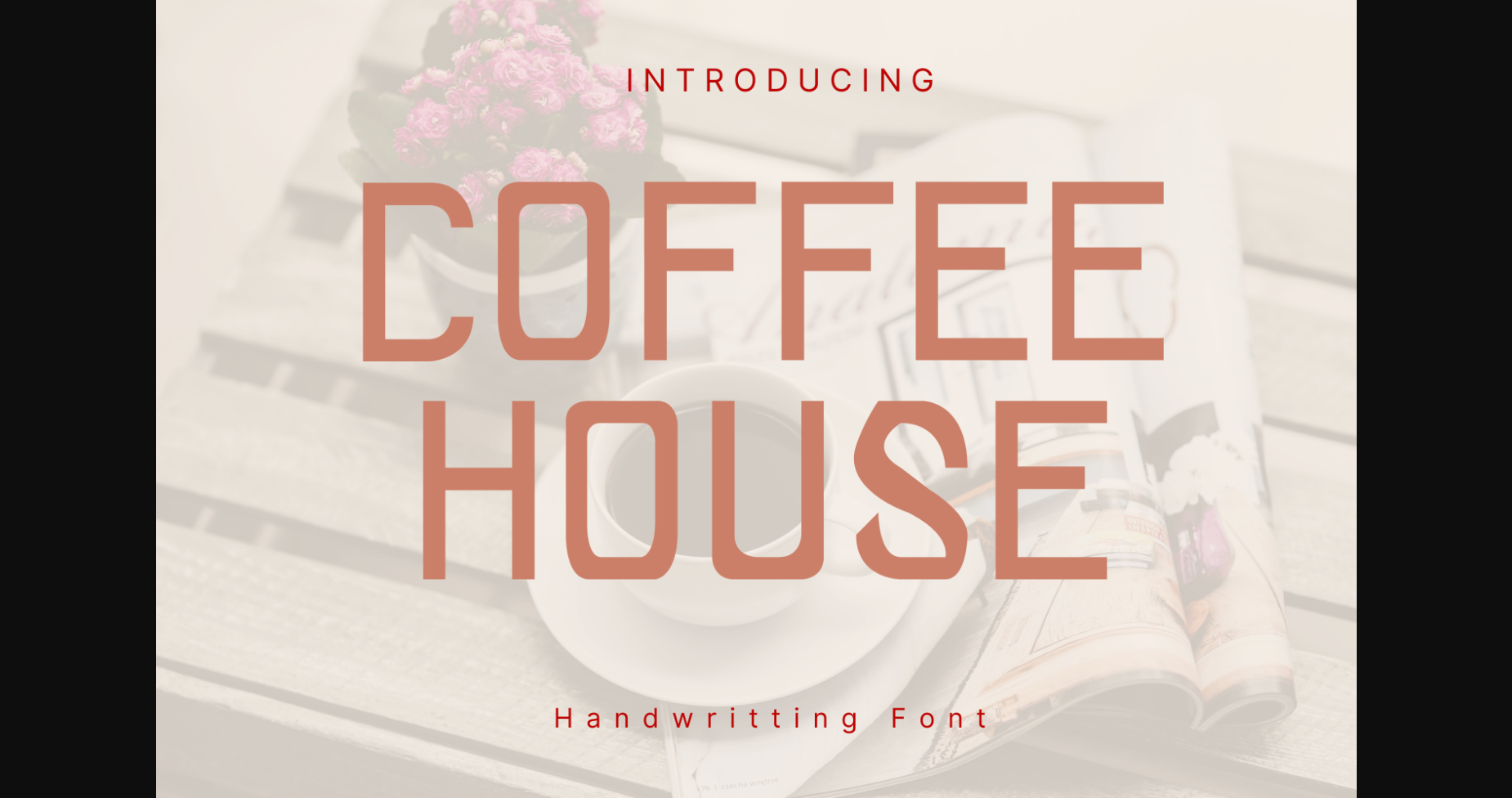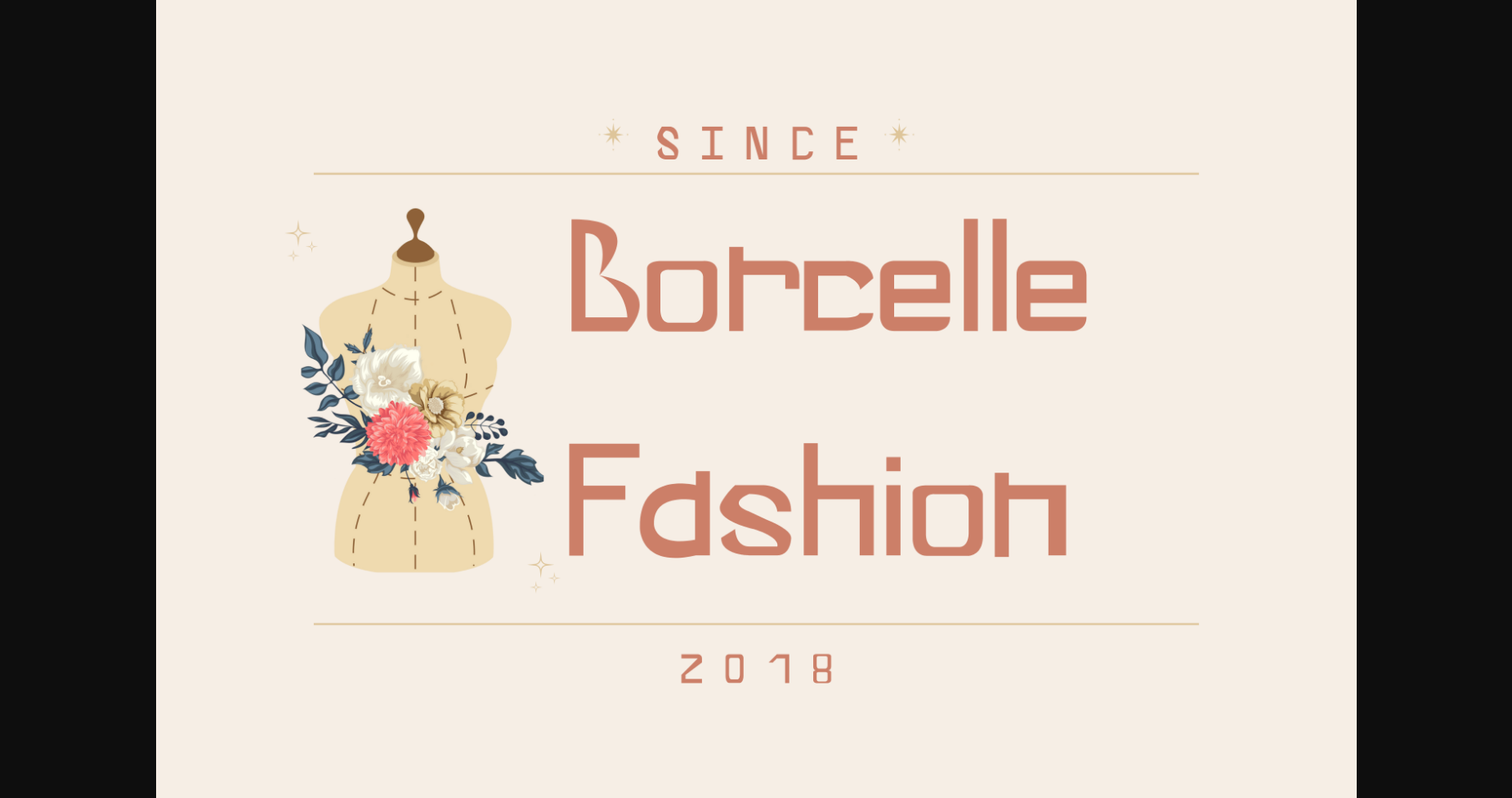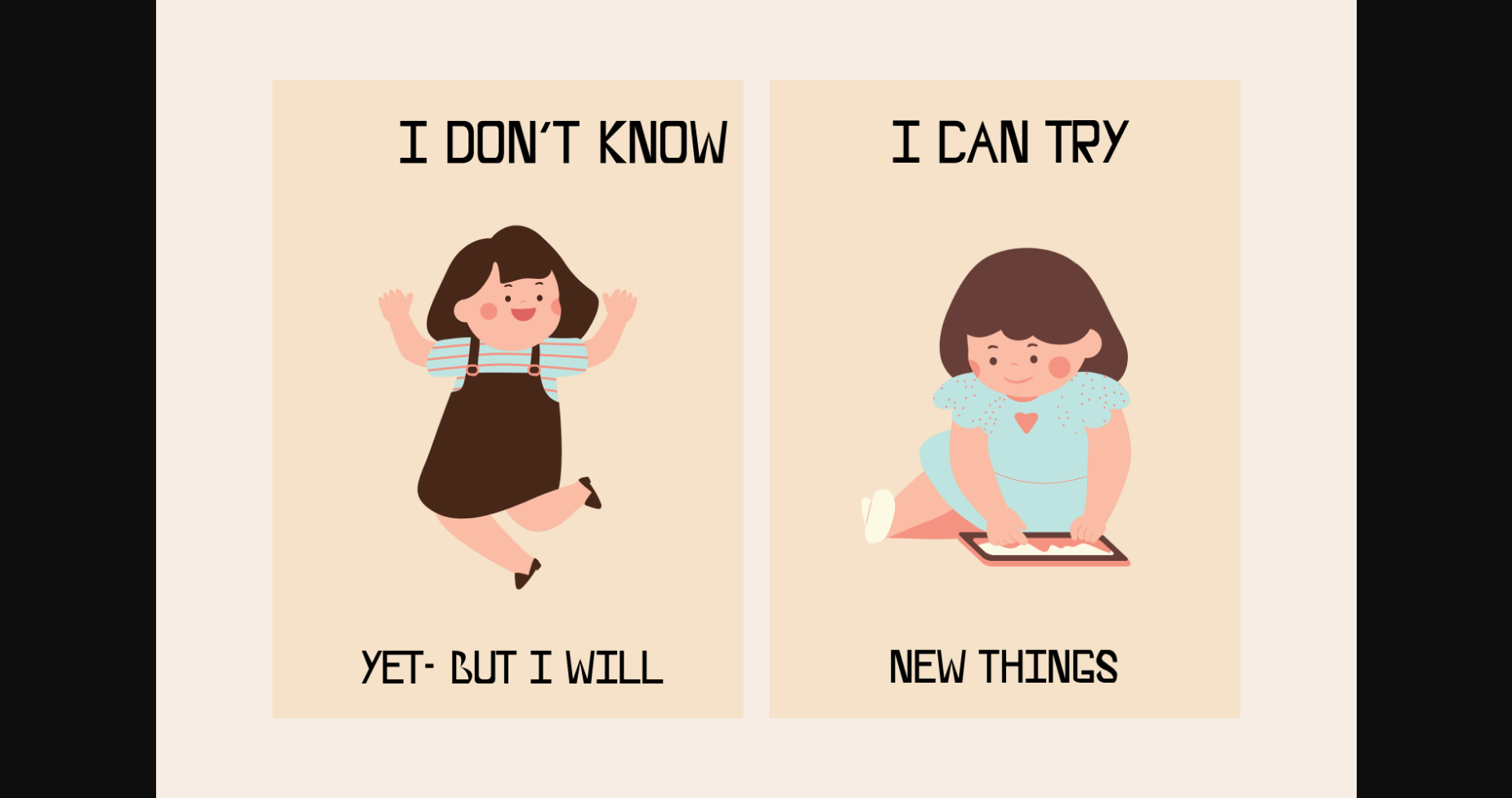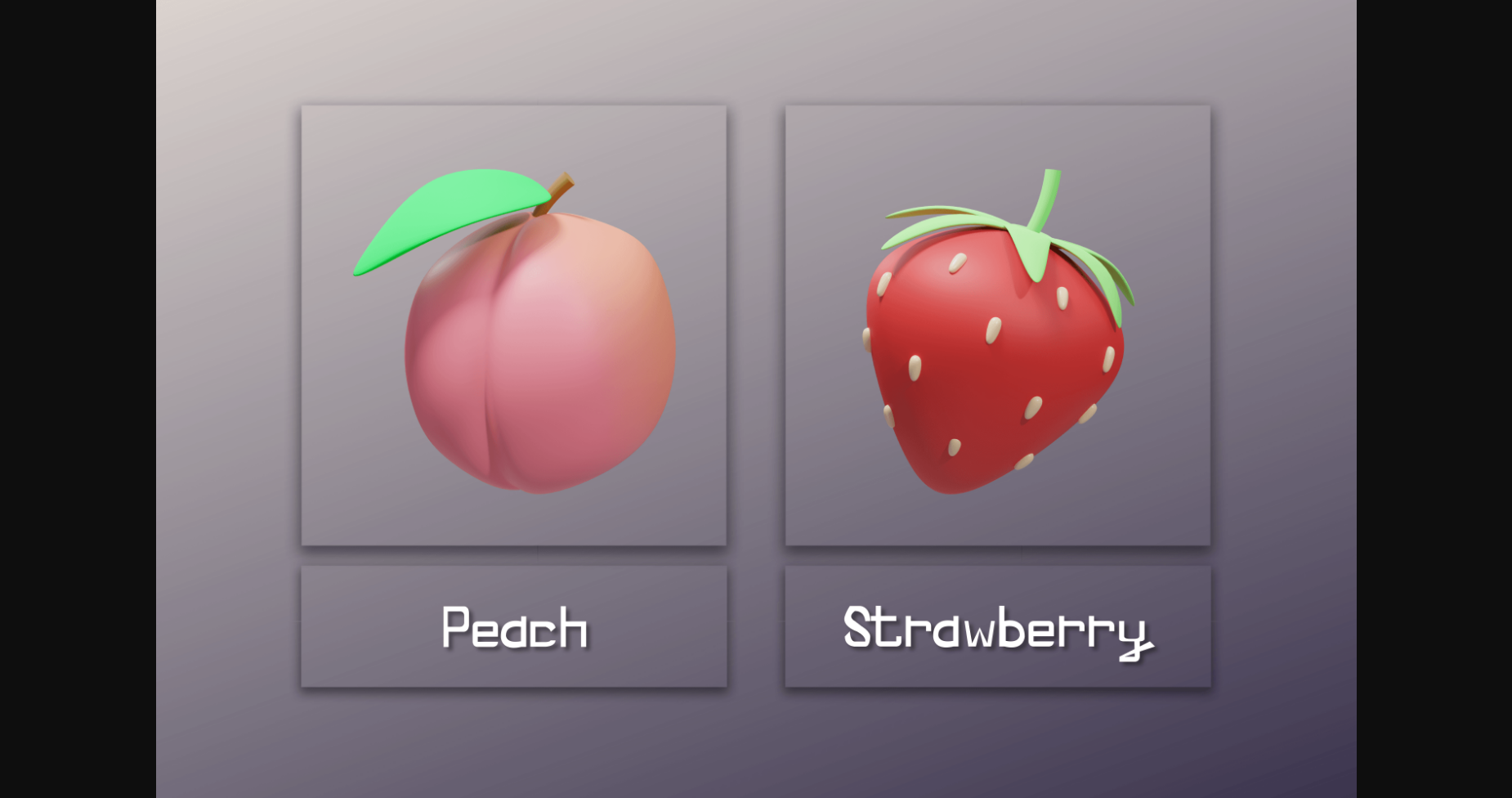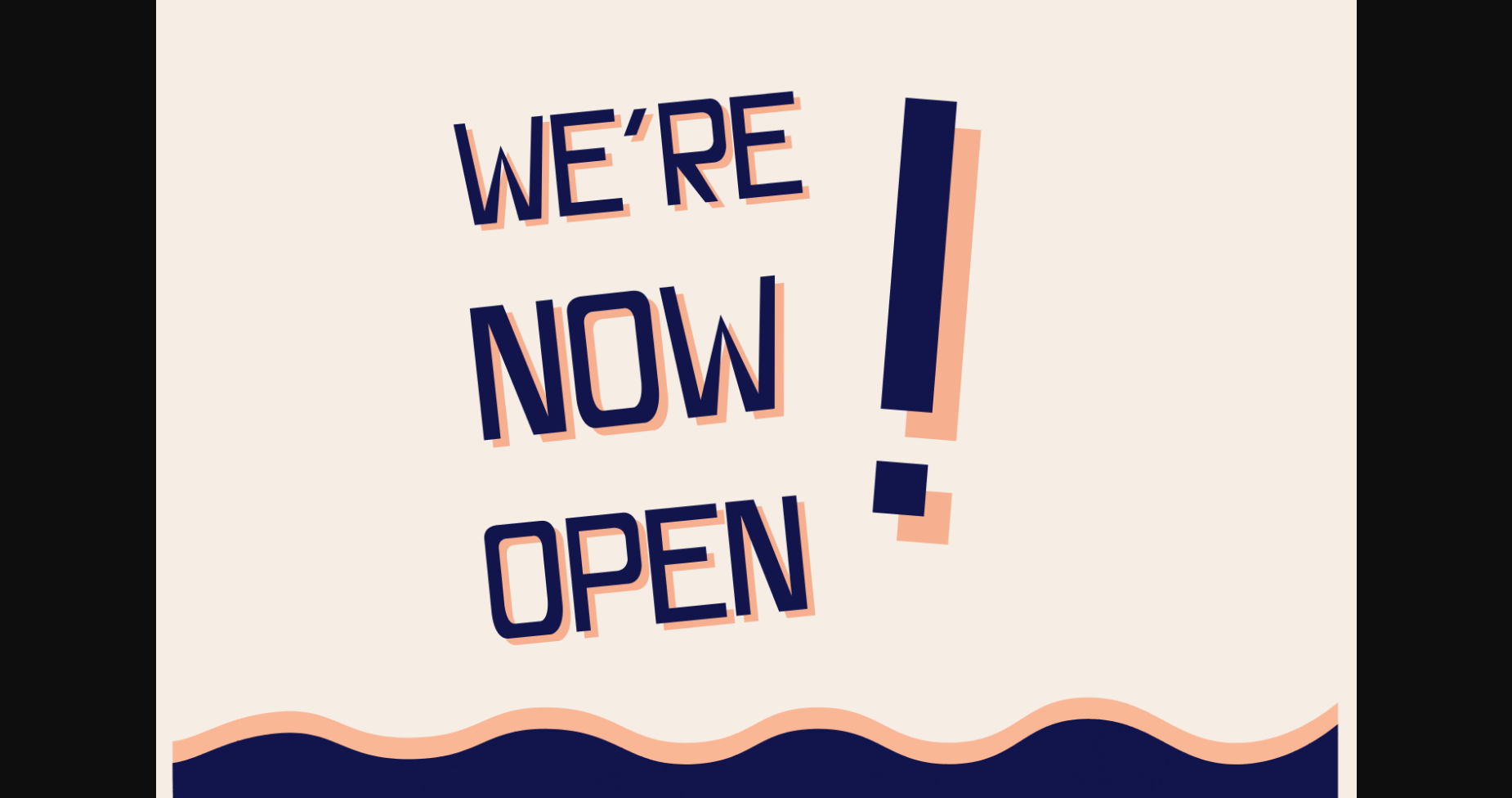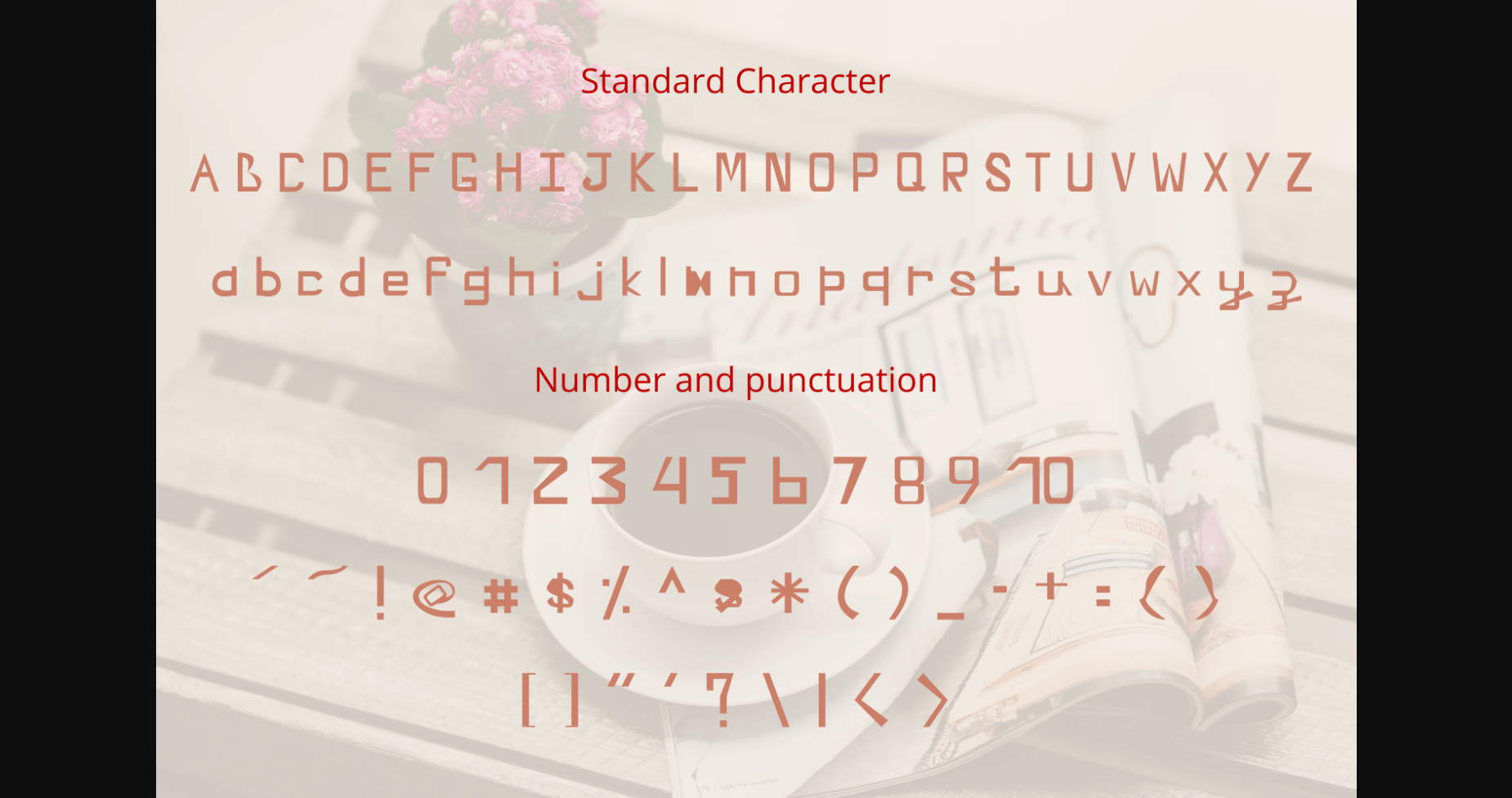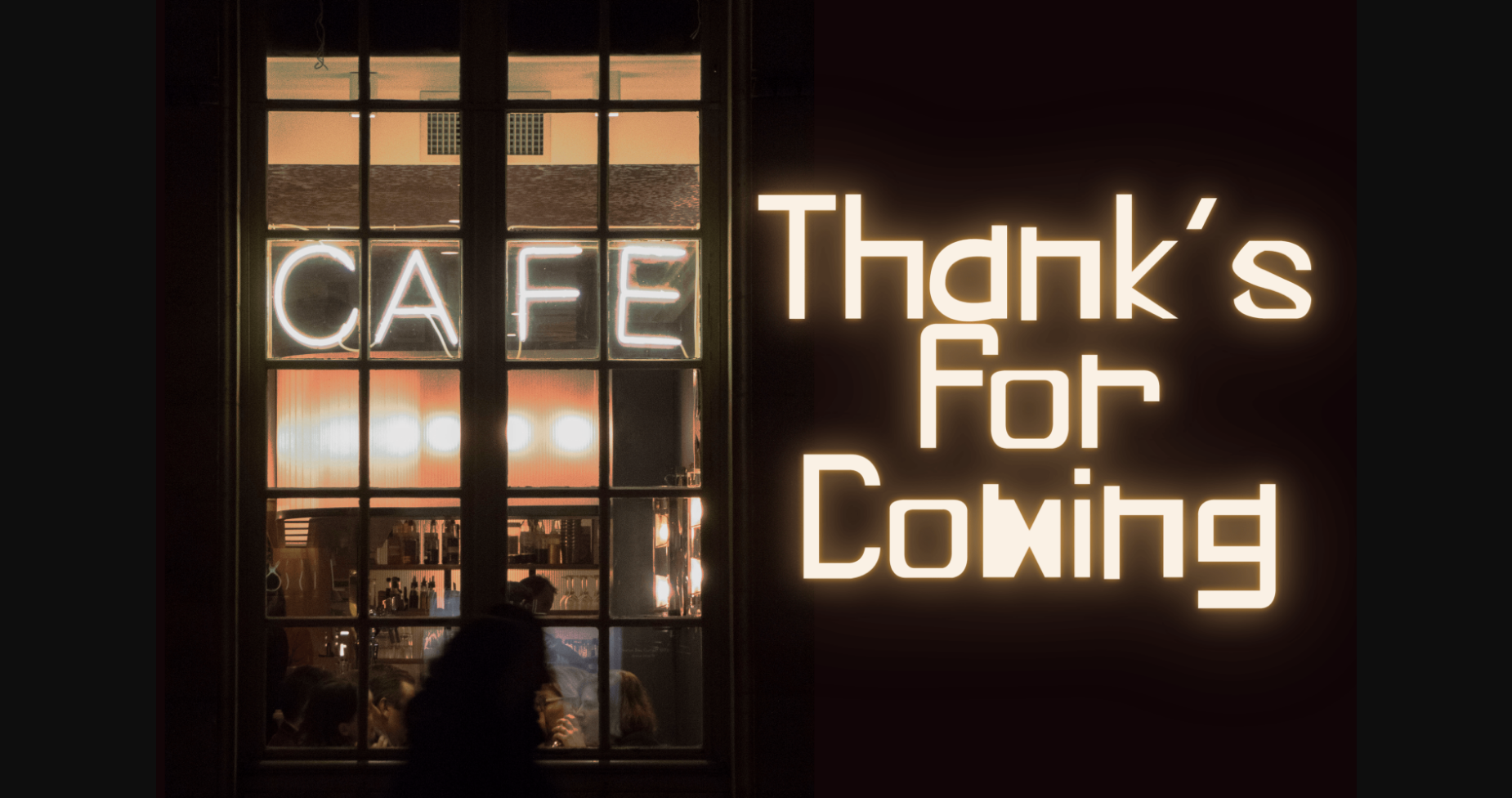
HomeSans Serif FontsCoffee House Font Sans Serif Fonts Coffee House Font FacebookXPinterestWhatsApp 1 of 9 ... Coffee House Font Poster 2... Coffee House Font Poster 3... Coffee House Font Poster 4... Coffee House Font Poster 5... Coffee House Font Poster 6... Coffee House Font Poster 7... Coffee House Font Poster 8... Coffee House Font Poster 9... About Coffee House Font Coffee House is a whimsical and clean sans serif font. It can easily be matched to an incredibly large set of projects, so add it to your creative ideas and notice how it makes them stand out! DOWNLOAD NOW People also explored Lovely Font Wincent Outline Extra Black Font Food Table Catering Card Mock Up Cambria Font Hamiltone Signature Font Qillimition Font Caption Font Solution of Difficulty Font Epiphany Font 333 0 TagsCoffee House Font Previous articleGeorgetown FontNext articleBelangsak Font LEAVE A REPLY Cancel reply Comment: Please enter your comment! Name:* Please enter your name here Email:* You have entered an incorrect email address! Please enter your email address here Website: Save my name, email, and website in this browser for the next time I comment. Personal Use Free Krase Personal Use Free Read more about this font Alnair Star Personal Use Free Read more about this font Xplor Personal Use Free Read more about this font Crayones Personal Use Free Read more about this font BLOG Free Fonts Risk: Why Free Fonts Can Be Dangerous for Designers Free Fonts Risk: Why Free Fonts Can Be Dangerous for Designers Using free fonts is a common practice in web and graphic design. However, the... Free vs Paid Fonts: Why Investing in Premium Fonts Is Worth It To increase your work productivity, choose the most readable fonts. Where to Buy American Fonts Online in 2024